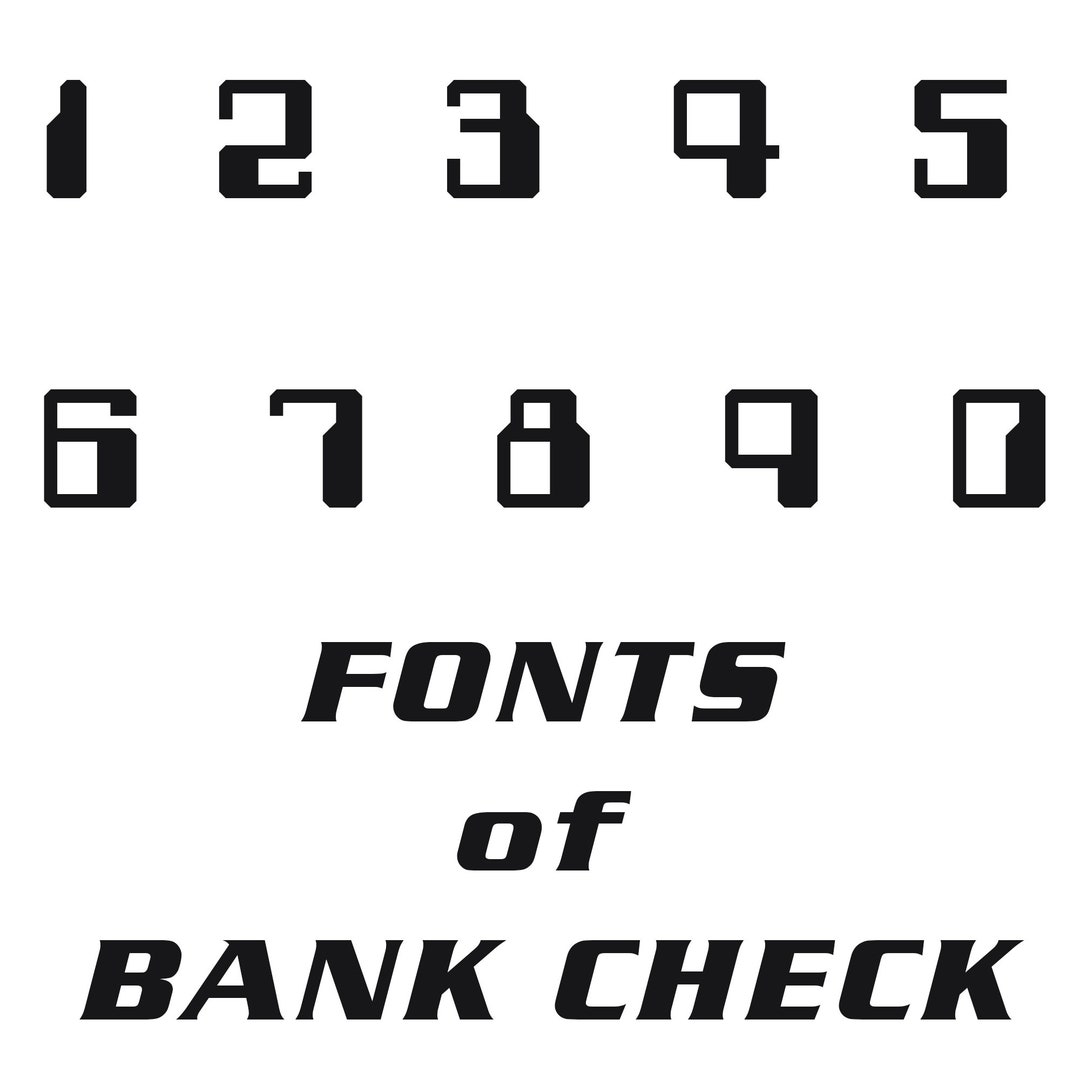
What Font Do Banks Use On Checks
What Font Do Banks Use On Checks - Web as long as it's a standard size, has the micr line, and has the information that a check needs, your bank is likely to. The font commonly used in banks for checks is typically a variation of the micr (magnetic ink character.
The Font Commonly Used In Banks For Checks Is Typically A Variation Of The Micr (Magnetic Ink Character.
Web as long as it's a standard size, has the micr line, and has the information that a check needs, your bank is likely to.